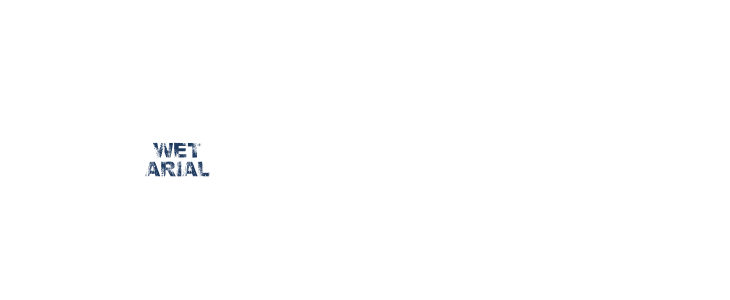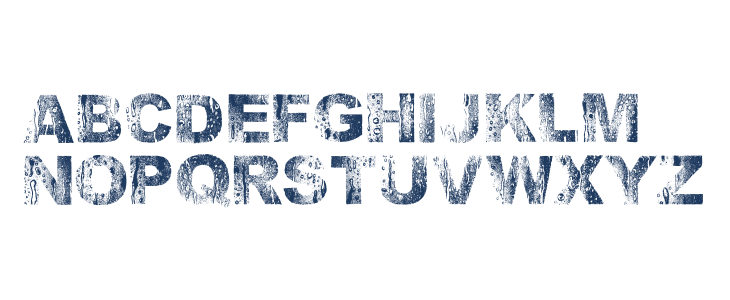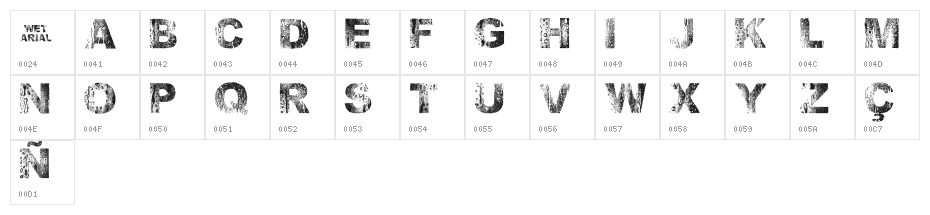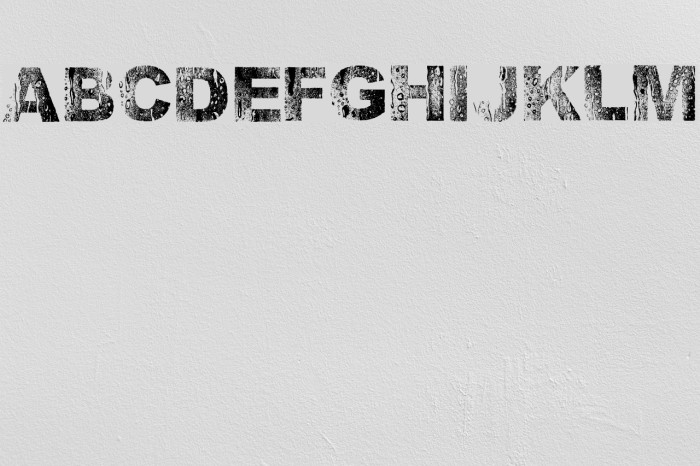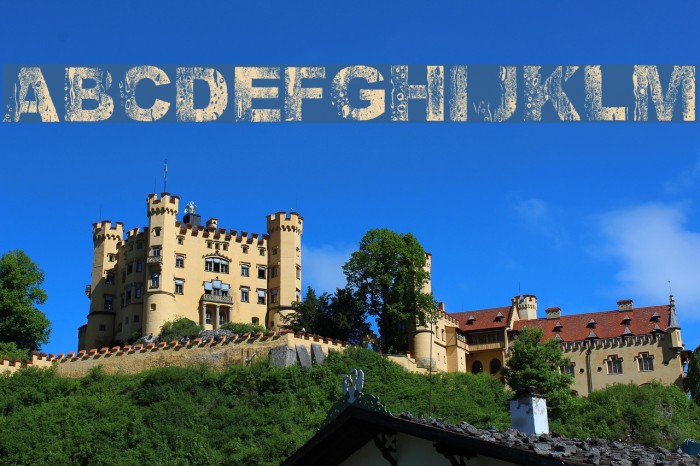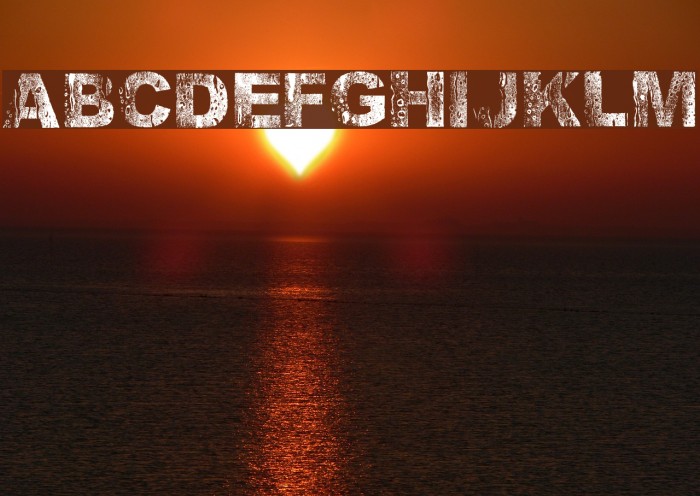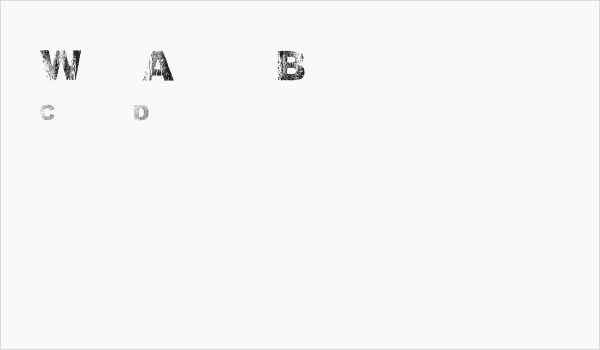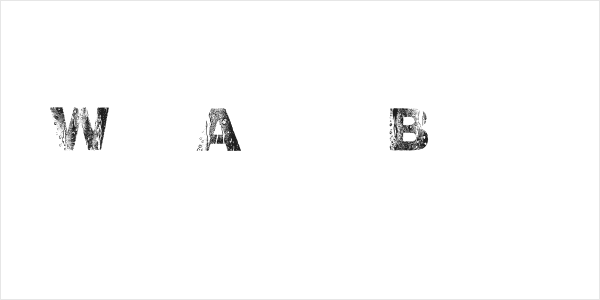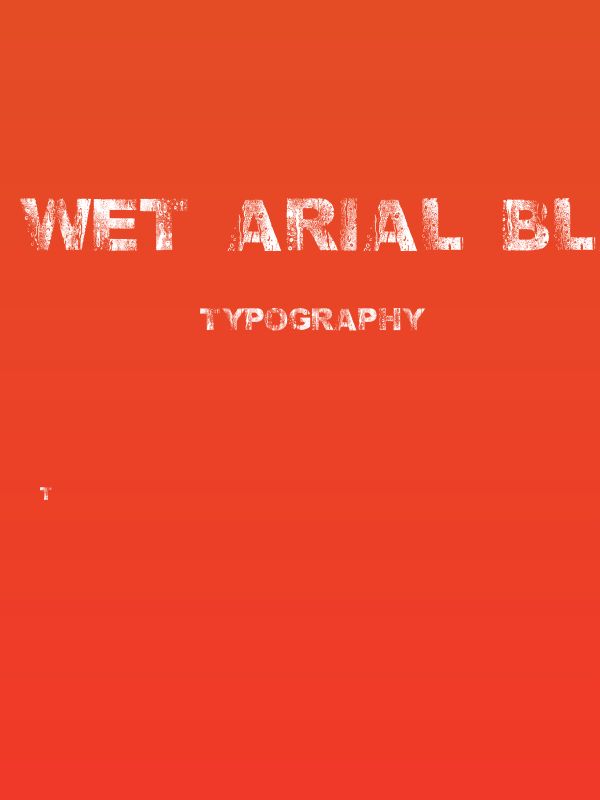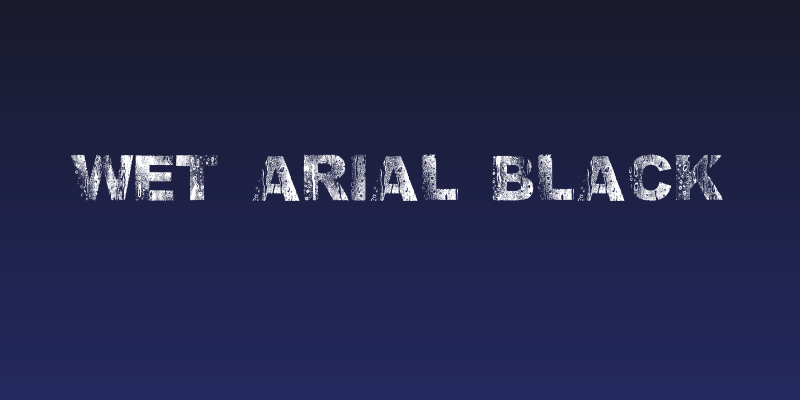
Wet Arial Black Font
Wet Arial Black Description
This font features a bold, distressed style with a textured appearance, reminiscent of letters that have been exposed to water or weathered over time. The uppercase letters are prominent and impactful, making them suitable for attention-grabbing designs. The texture adds a unique, artistic flair, giving each character a sense of depth and dimension. The font maintains a consistent weight throughout, with a strong presence that commands attention. Its rugged and worn look makes it ideal for projects that require a vintage or grunge aesthetic.
Overall StyleVintage
Proposed ProjectsIdeal for posters, album covers, branding, and any design needing a vintage or grunge look.